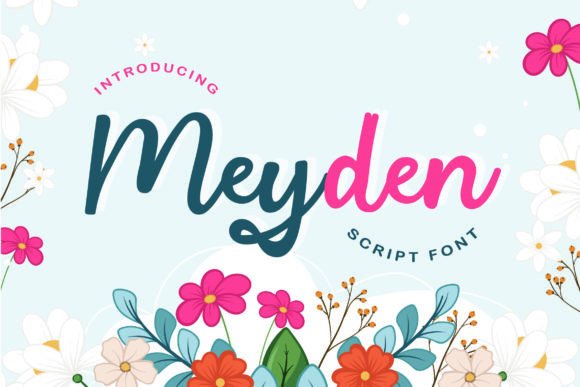
Mayden Font
Introducing Mayden Font - A Script That Will Enchant Your Designs!
Mayden Font - A calligraphic dream, a script that dances with grace and elegance. Inspired by the timeless art of handwriting, Mayden invites you on a journey of creativity and expression. Its delicate lines and playful curves will add a touch of charm and personality to your designs, making them stand out from the crowd.
Picture this: Your website, adorned with the enchanting strokes of Mayden Font. The headlines dance before your eyes, captivating your audience with their undeniable allure. The call-to-action button beckons invitingly, promising an experience that's both beautiful and engaging. With Mayden Font as your ally, your website transforms into a symphony of visual delight, leaving a lasting impression on every visitor.
But Mayden Font isn't just for digital spaces. Its versatility knows no bounds, making it the perfect companion for a myriad of creative endeavors. From invitations and greeting cards that carry your heartfelt sentiments to branding materials and business cards that exude professionalism, Mayden Font will elevate your designs to new heights. Create posters that are works of art, quotes that inspire, and social media posts that spark conversations.
With Mayden Font as your creative partner, the possibilities are endless. Embrace its whimsical nature and let your imagination soar. Allow its enchanting strokes to guide you as you pour your heart and soul into every project. Mayden Font isn't just a font; it's a key that unlocks a world of beauty and creativity, waiting to be explored.